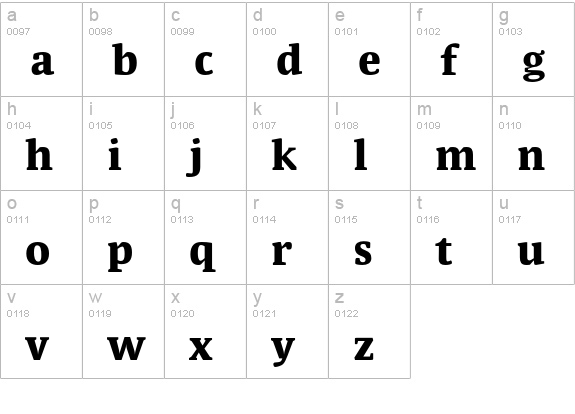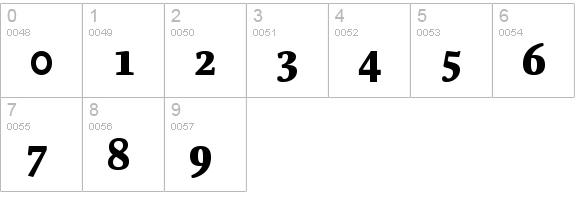
Parable-ExtraBold is an extra-heavy, attention-grabbing variant in the Parable typeface family \xE2\x80\x94 well suited to high-impact headlines, posters, and bold branding.
Introducing Parable-ExtraBold, a striking and captivating font that effortlessly commands attention. With its bold and powerful presence, Parable-ExtraBold is the perfect choice for those seeking to make a statement with their typography. This font is a true masterpiece, carefully crafted to exude strength and confidence. Its thick and assertive strokes create a sense of stability, while the sharp angles and unique letterforms add a touch of modernity and sophistication. But what truly sets Parable-ExtraBold apart is its versatility. Whether used for headlines, logos, posters, or any other design project, this font delivers exceptional legibility and impact. It effortlessly adapts to various design styles, seamlessly blending into any composition. And the best part? Parable-ExtraBold is freely available to download at FontsMarket.com. Yes, you heard it right - this exceptional font can be yours without any cost. Now, you can elevate your design game without breaking the bank. Embrace the power of Parable-ExtraBold and unleash your creativity. Whether you're a seasoned designer or just starting your journey, this font will be your trusted companion, enhancing your projects with its bold and captivating presence. So why wait? Head over to FontsMarket.com and download Parable-ExtraBold today. Transform your designs and captivate your audience with this extraordinary font that effortlessly combines strength, style, and the best part - it's free!